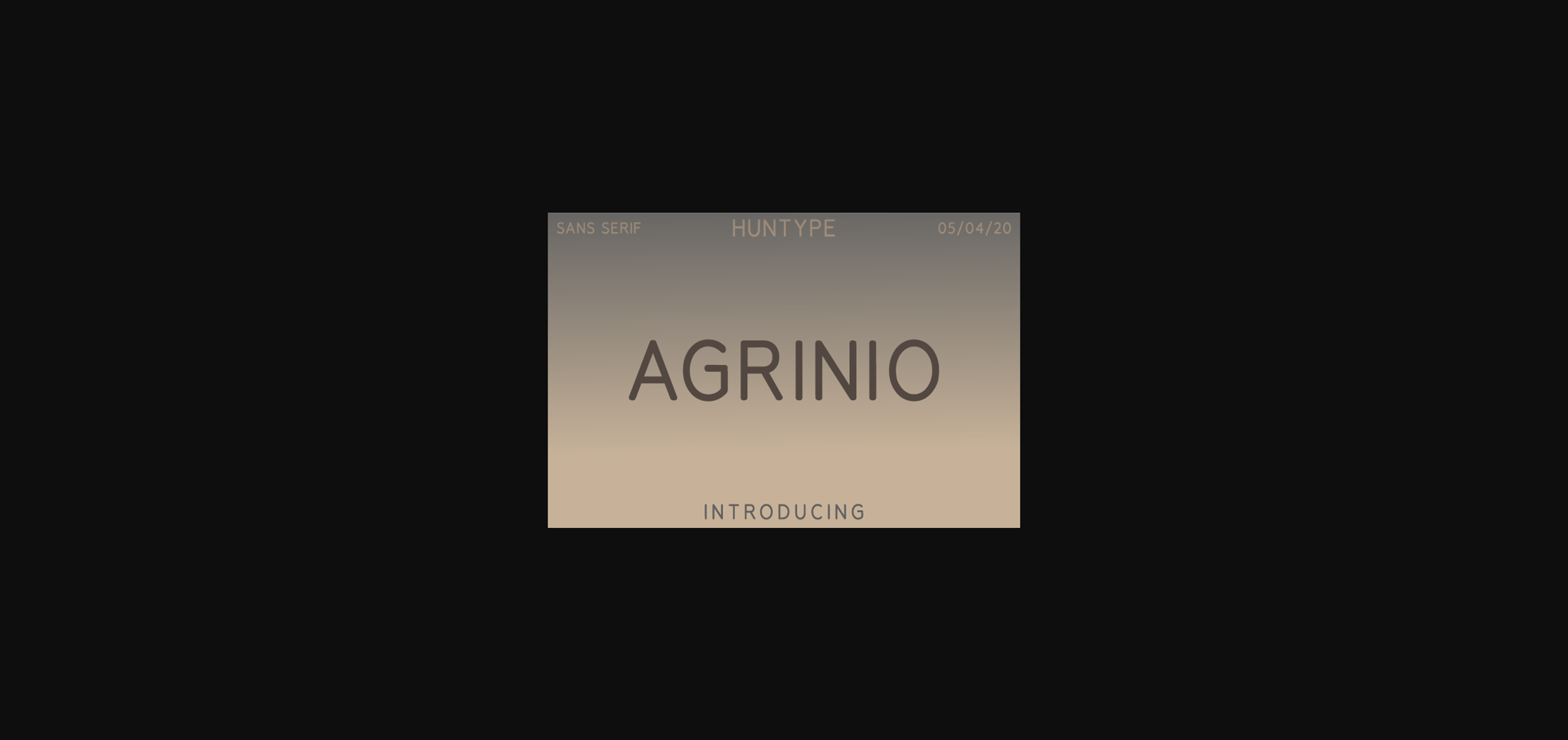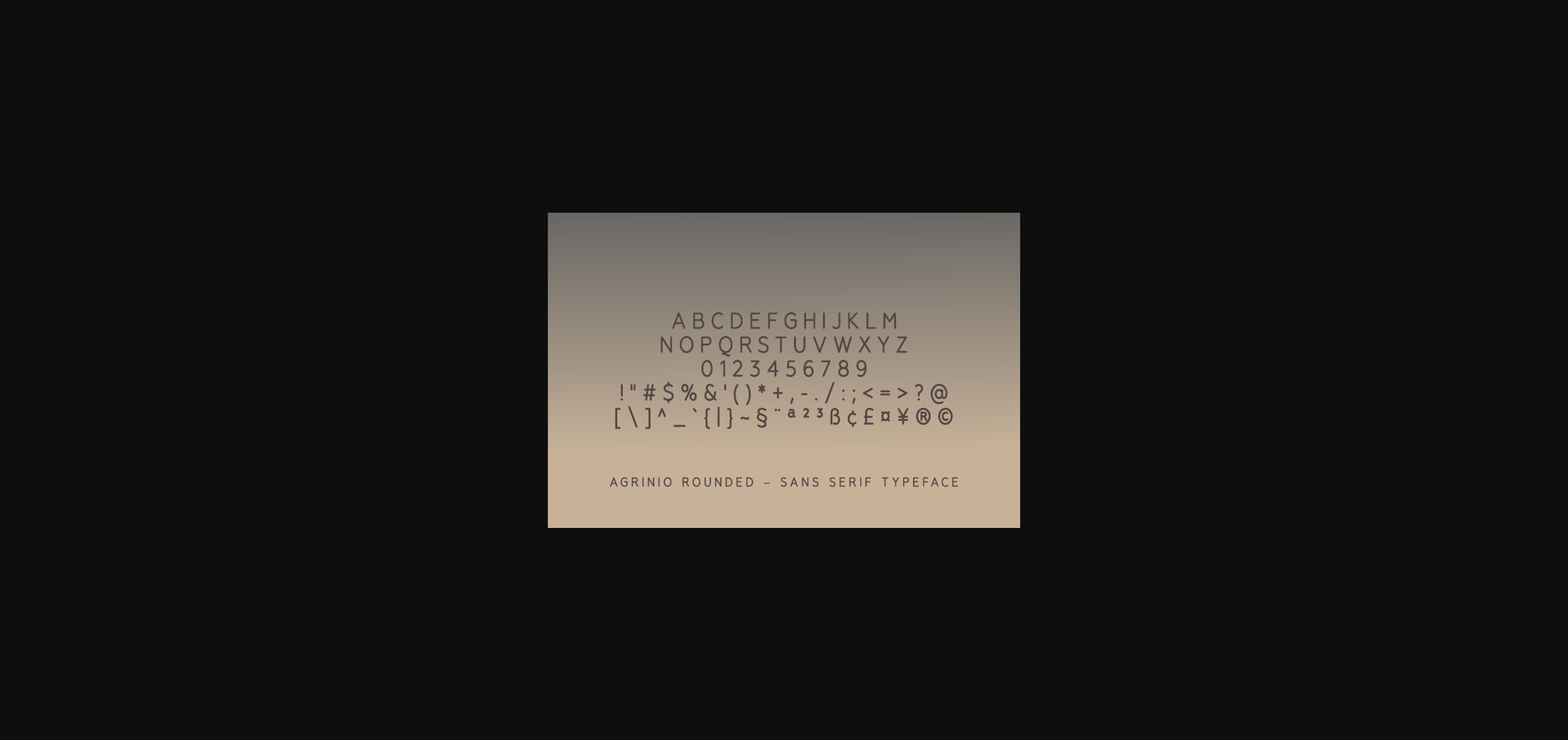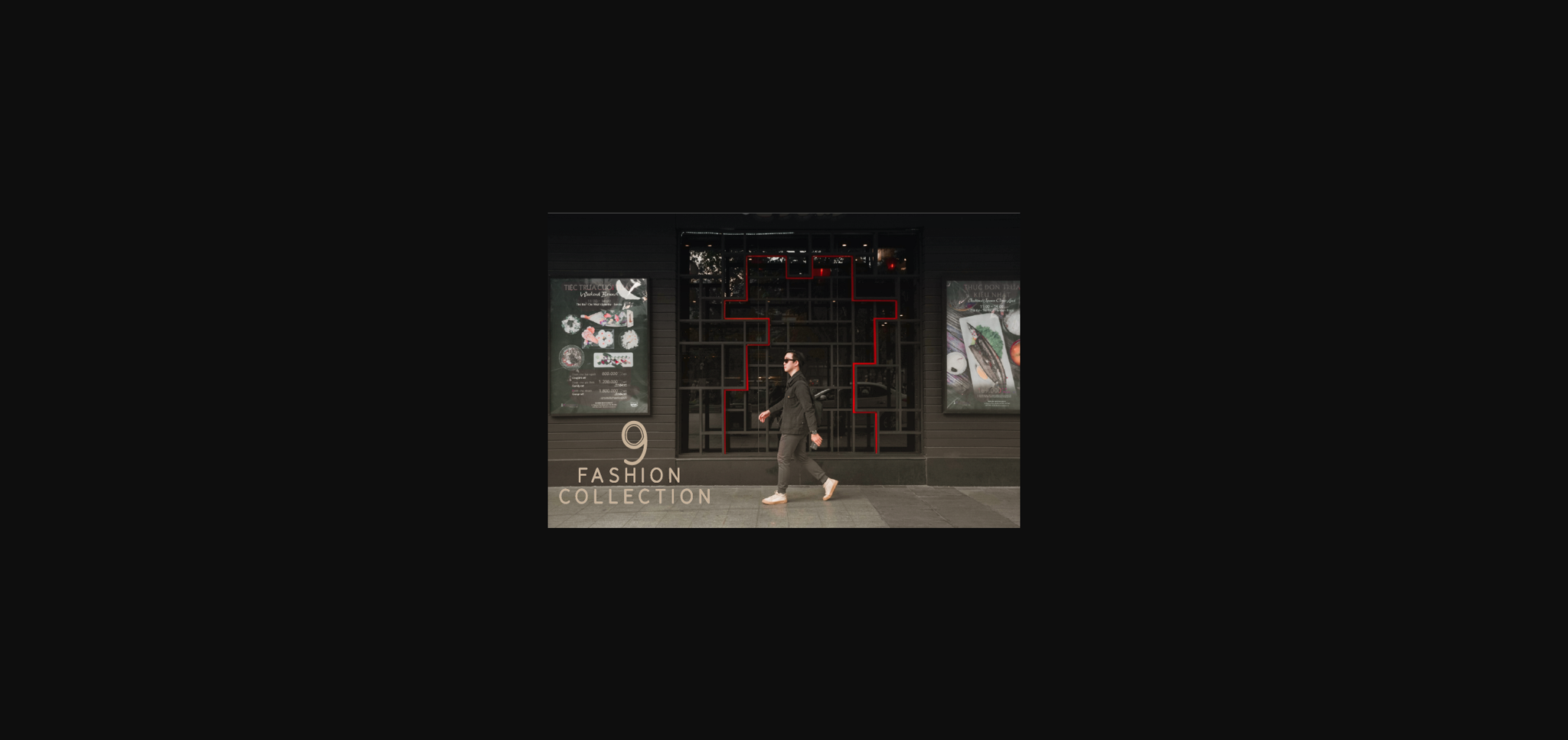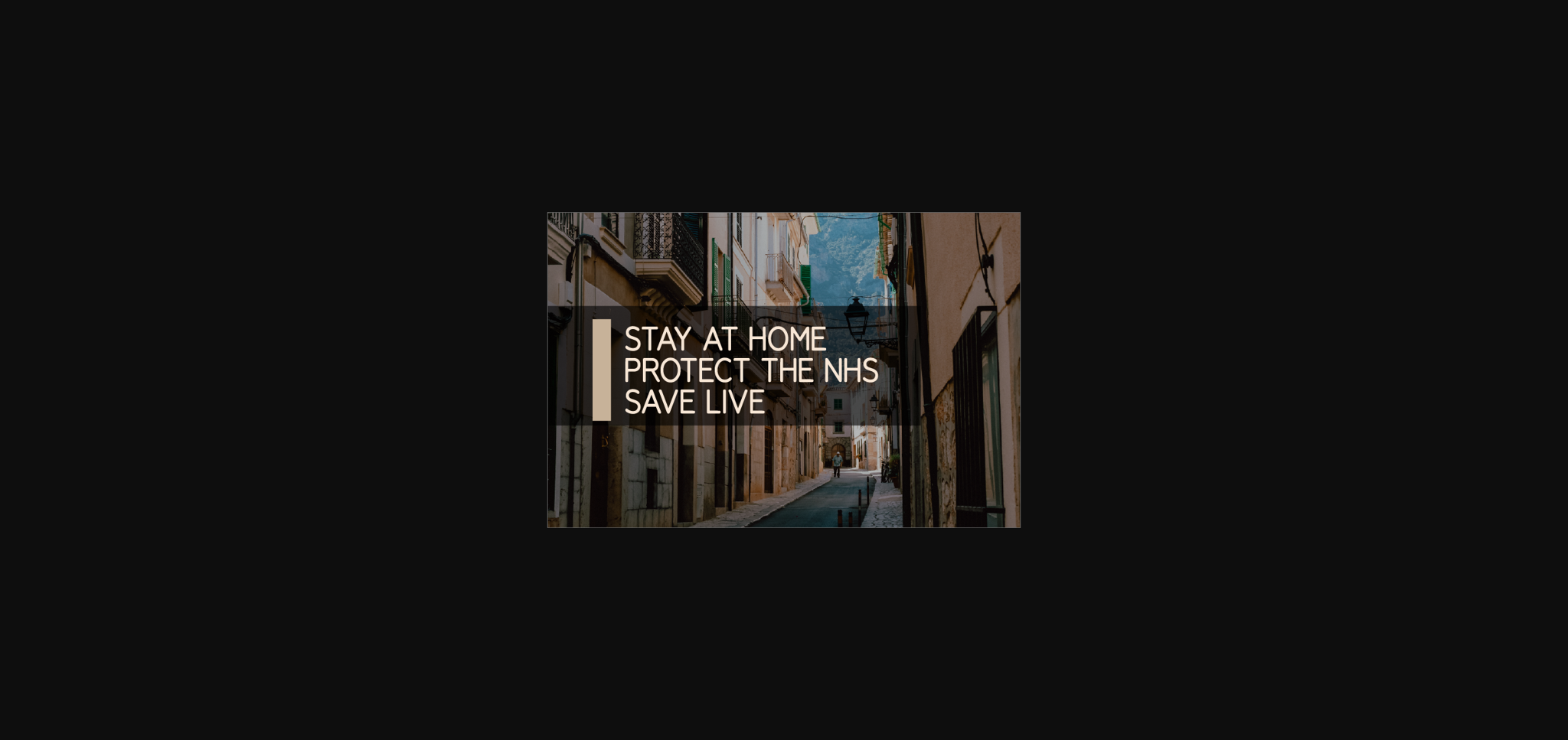
About Agrinio Font
Agrinio is a distinct, elegant sans serif font that blends traditional influences into a contemporary aesthetic. It will look particularly adept when used in logos, branding, packaging design, and much more. This masterfully designed font is a true must-have.